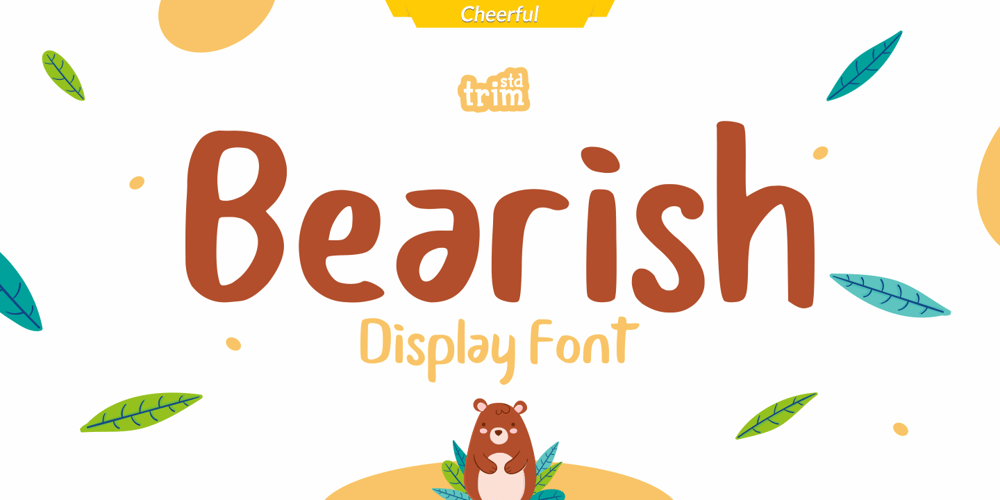
Bearish Font Family was designed by Deri Kurnia and published by Trim Studio. Bearish contains 1 styles and family package options. Bearish is a handwritten modern display font, inspired by kids handwriting. It’s perfectly suited for crafters and graphic artists to complete their design such as invitations, advertisements, posters, logos, birthday carts, product signs, and many more.Bearish contains all standard glyphs and punctuations.